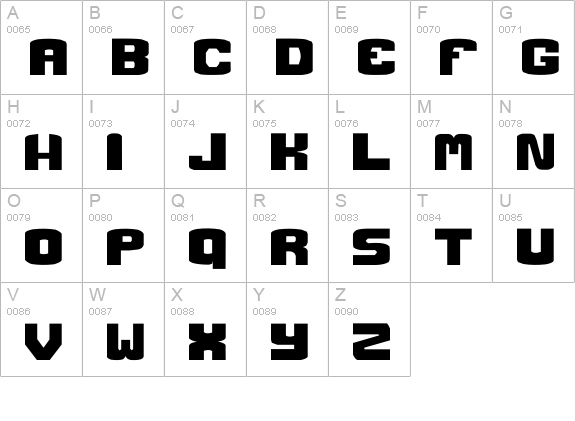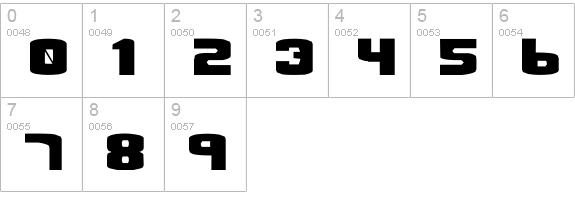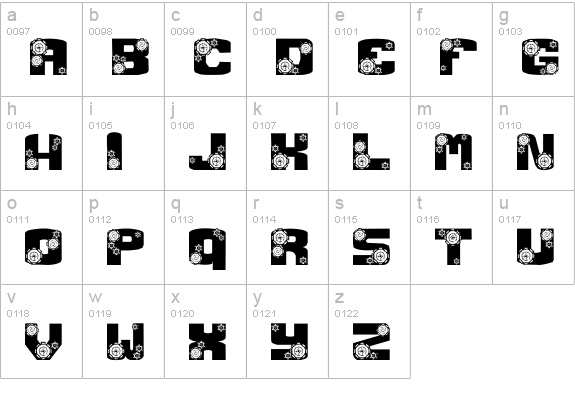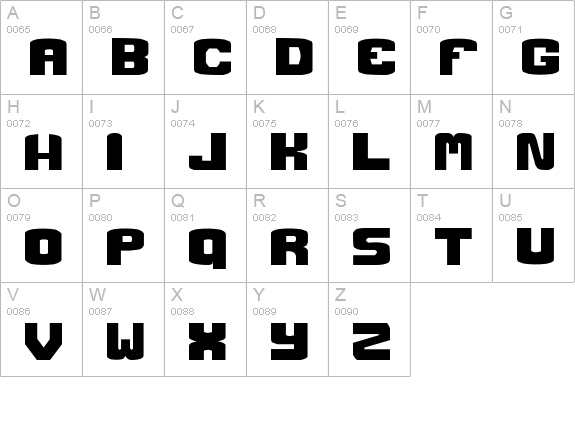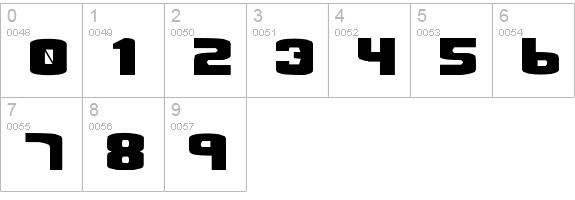
Gear Crank font is a unique and stylish typeface that combines industrial aesthetics with a modern twist. This font features intricate gear-like details on each letter, giving it a mechanical and futuristic feel. The geometric shapes and sharp edges of Gear Crank make it perfect for projects that require a bold and edgy look. What's even better is that Gear Crank font is available for free download at FontsMarket.com. This means you can easily incorporate this eye-catching font into your designs without having to worry about any additional costs. Whether you're working on a logo, poster, or website, Gear Crank font will definitely make a statement and help your designs stand out from the crowd. Download it now and unleash the power of this striking typeface in your projects!